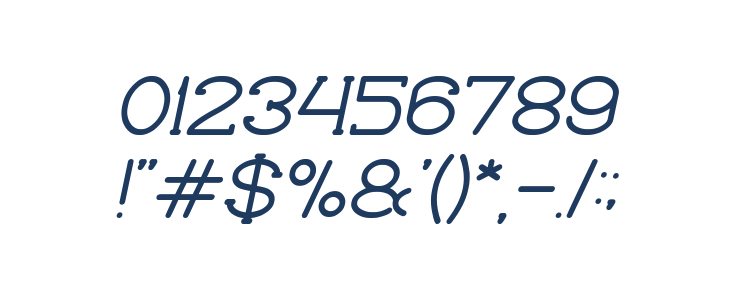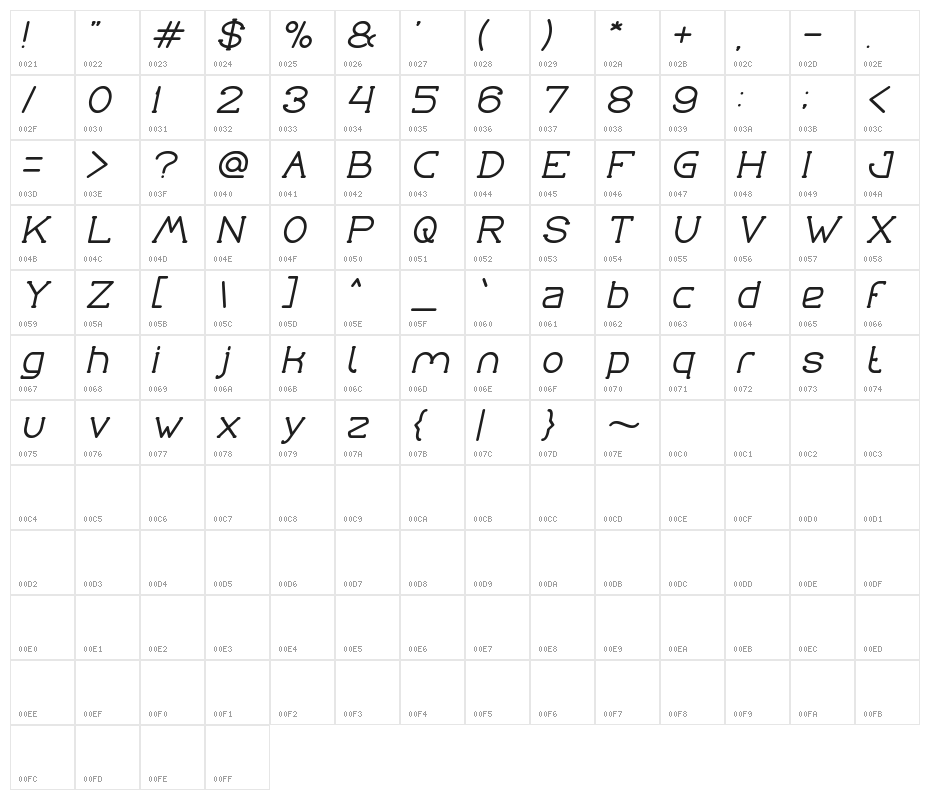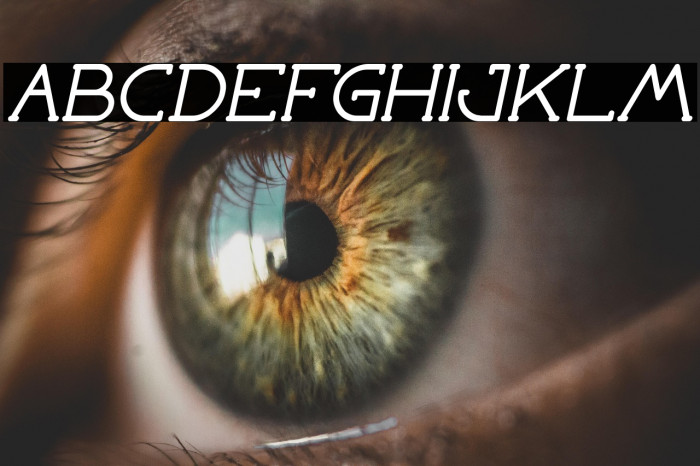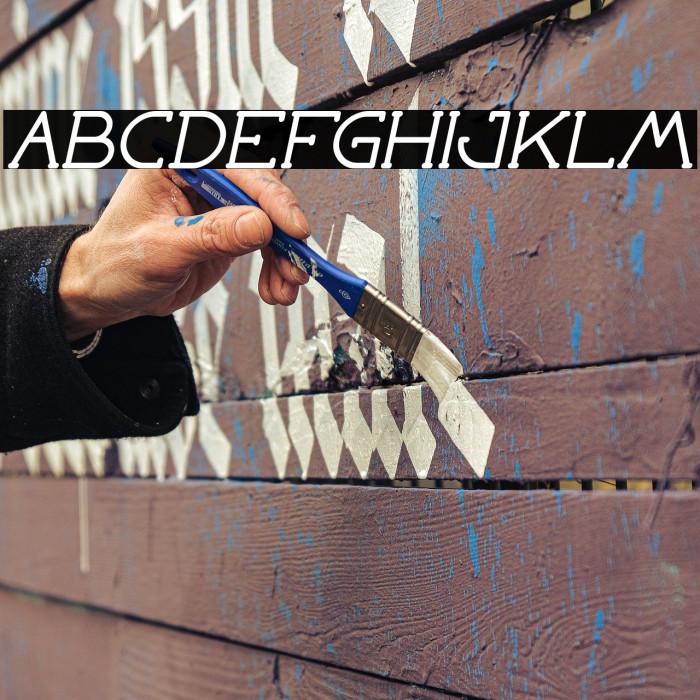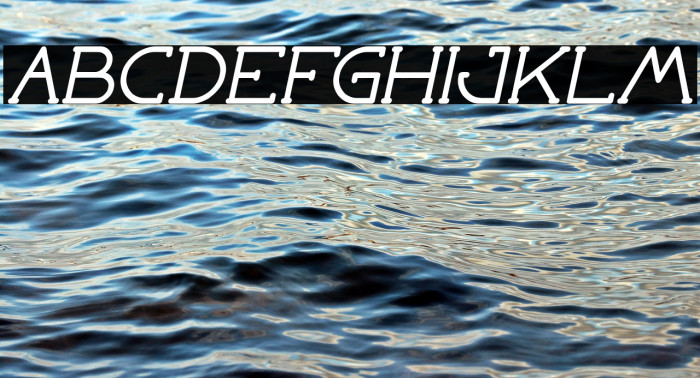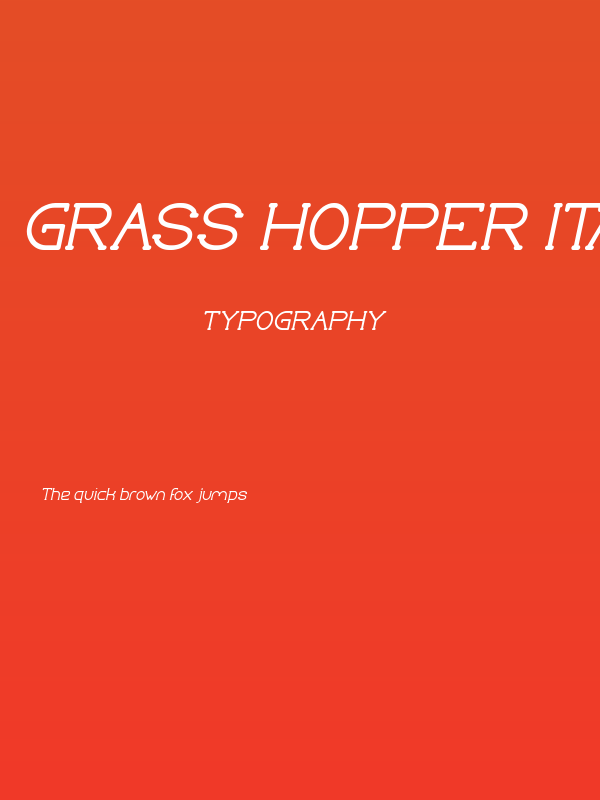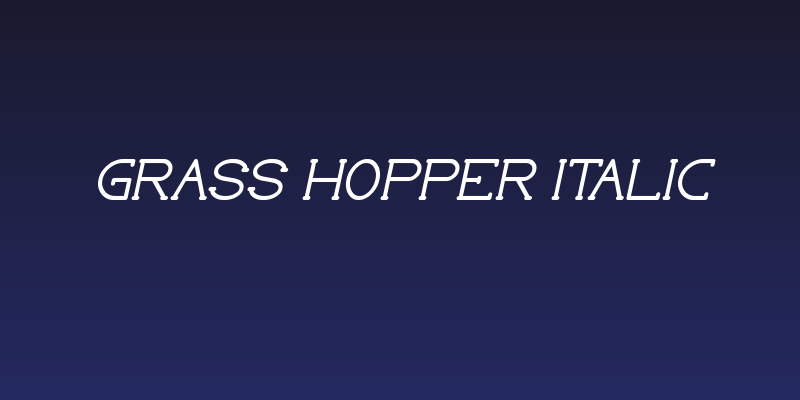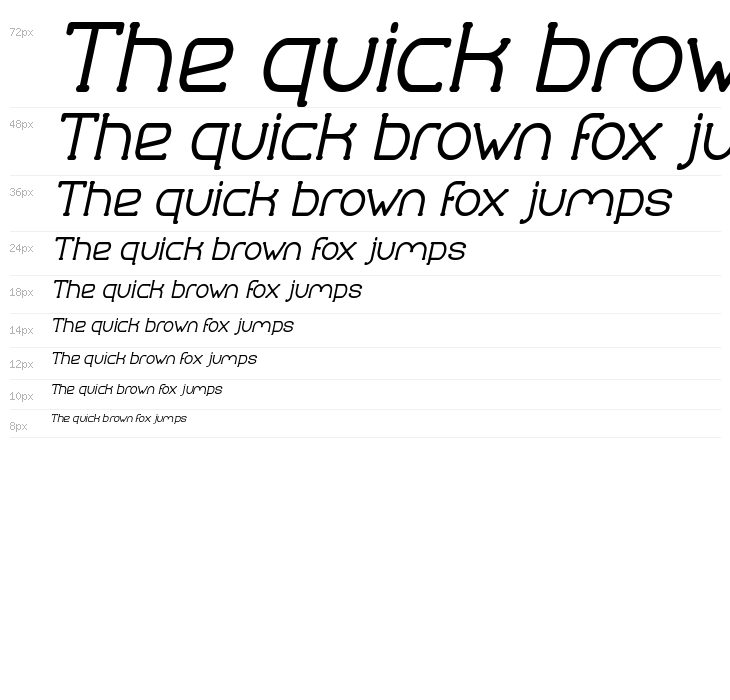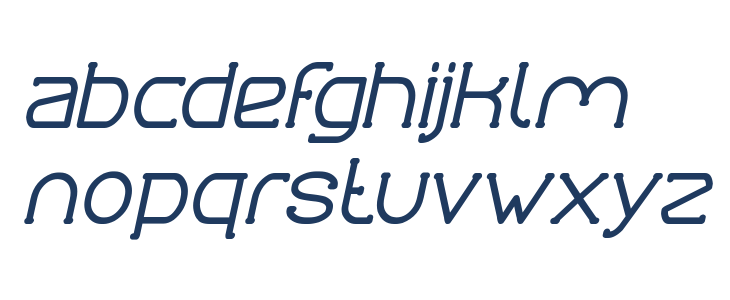
Grass Hopper Italic Font
Grass Hopper Italic Description
This font features a unique blend of modern and classic elements, characterized by its italicized, slightly slanted letters that convey a sense of motion and elegance. The strokes are consistent in width, offering a clean and uniform appearance. The uppercase letters are bold and assertive, while the lowercase letters maintain a more delicate and refined look. The numerals are clear and easily distinguishable, making them suitable for various applications. Special characters are well-defined, adding versatility to the font's usage. Overall, this font exudes a contemporary yet timeless appeal, making it suitable for a wide range of design projects.
| Proposed Projects | Ideal for branding, editorial design, advertising, and digital media projects that require a sophisticated and dynamic touch. |